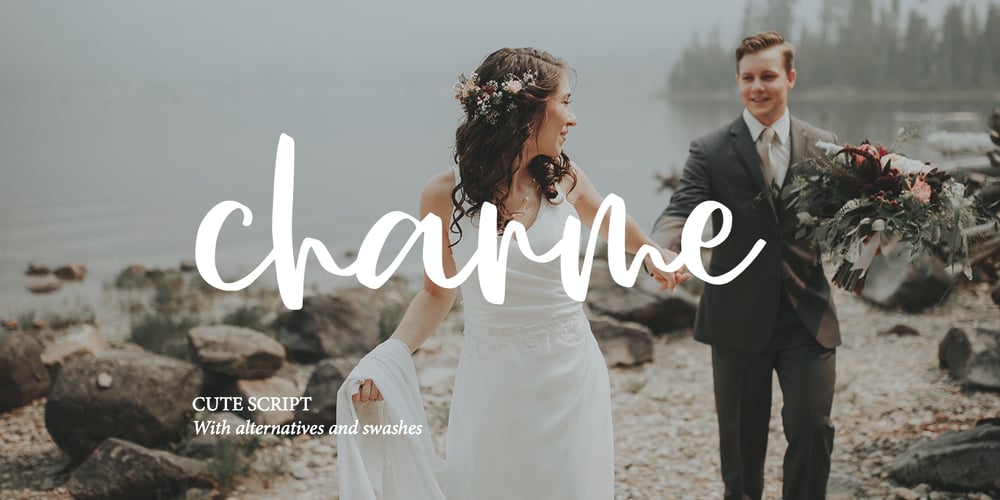
Charme Script Font Family was designed by Dmitrii Chirkov and published by Supfonts. Charme Script contains 1 styles and family package options. My new font is beautiful and smooth modern calligraphy with a floating baseline. Charme Script will look beautiful on Christmas and holiday invitations, wedding invites and stationery, logos, and more. I love using it for emphasis words and pairing it with serifs Includes: Charme OTF & TTF Uppercase and lowercase Numbers and punctuation Foreign language support Check out my blog: www.instagram.com/dmitriychirkov pinterest.com/dmitriychirkov7